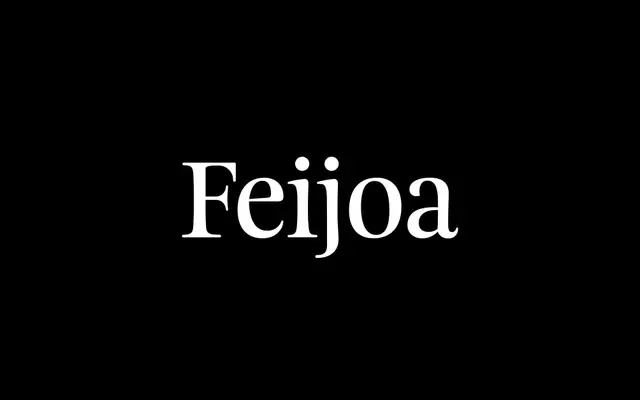
Feijoa
Klim Type Foundry · Kris Sowersby · 2007
Klim's first release: a warm humanist serif built on the idea that a straight line is a dead line, fit for book typography and reading.
A humanist serif by Kris Sowersby, the first typeface released by Klim Type Foundry, drawn from the principle that 'a straight line is a dead line'. The text weights, Medium, Italic and Bold, are built for book typography and extended reading, with a Display cut tuned for headlines at 16pt and larger. Several fanciful ligatures take their cue from Zuzana Licko's Mrs Eaves, giving the family a touch of bookish warmth that works well on long-form editorial and literary covers.
Klim classifies it as Modern: Garalde/Oldstyle; built on the principle that 'a straight line is a dead line', giving warm, curvaceous letterforms that humanise digital typography; ligatures inspired by Zuzana Licko's Mrs Eaves.